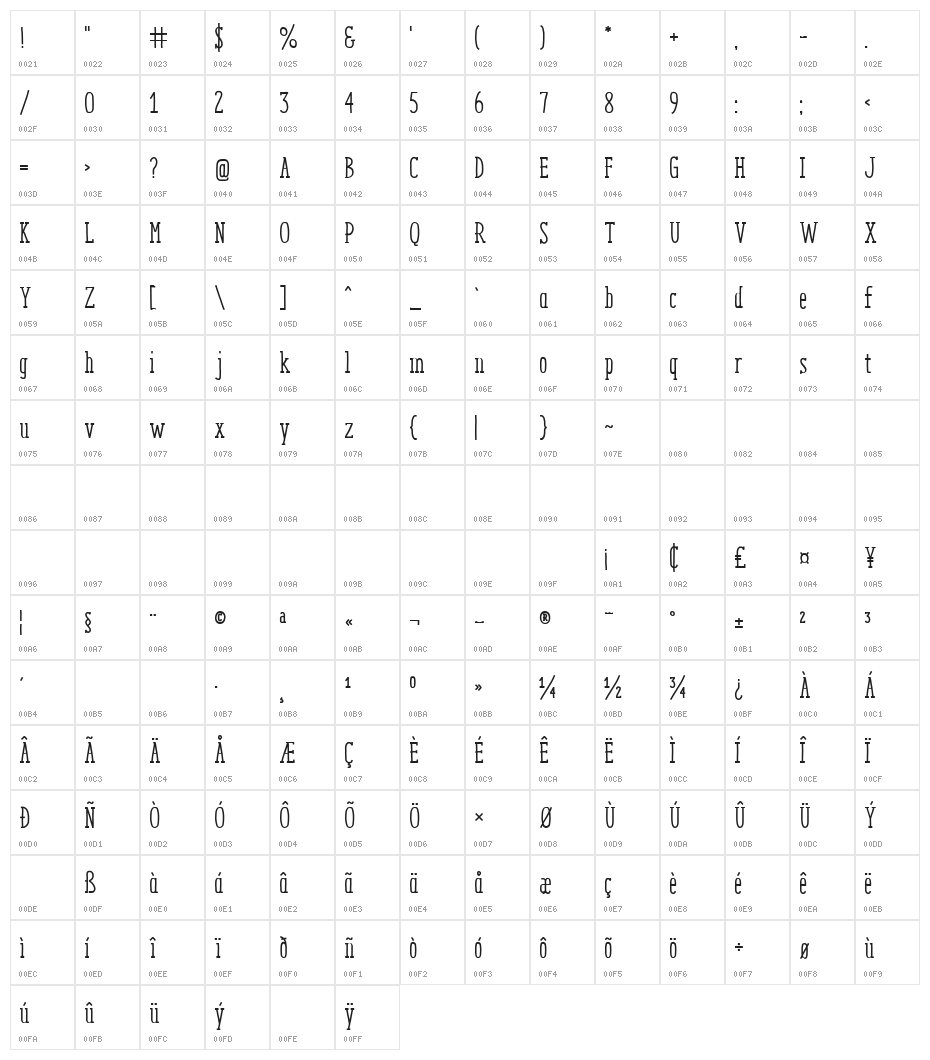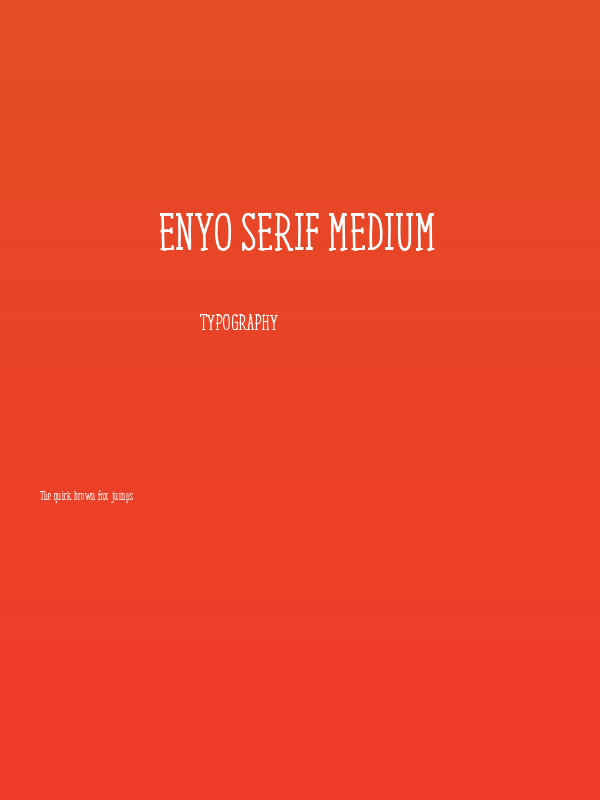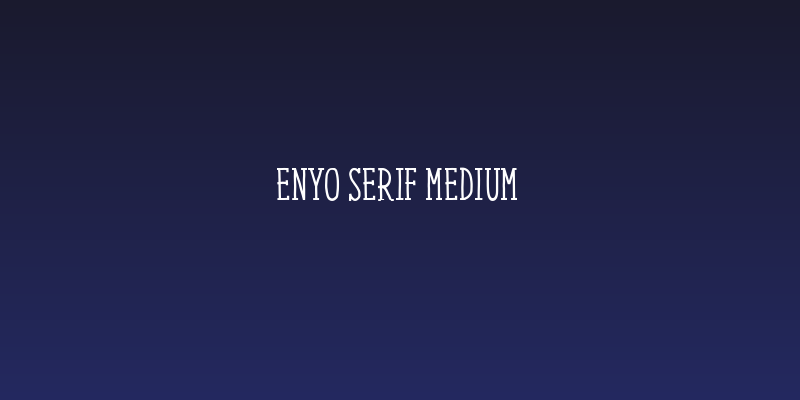
ENYO Serif Medium Font
ENYO Serif Medium Description
This font features a classic serif style with medium weight, offering a balanced and readable appearance. The serifs are pronounced, giving it a traditional and formal look, while the medium weight ensures it remains legible across various sizes. The uppercase letters are tall and slightly condensed, providing a sense of elegance and sophistication. The lowercase letters maintain a consistent style with the uppercase, featuring smooth curves and defined serifs. The numerals are clear and distinct, making them suitable for both text and display purposes. Special characters are well-integrated, maintaining the overall aesthetic of the font.
| Proposed Projects | Ideal for editorial design, book covers, formal invitations, and branding projects that require a touch of elegance. |